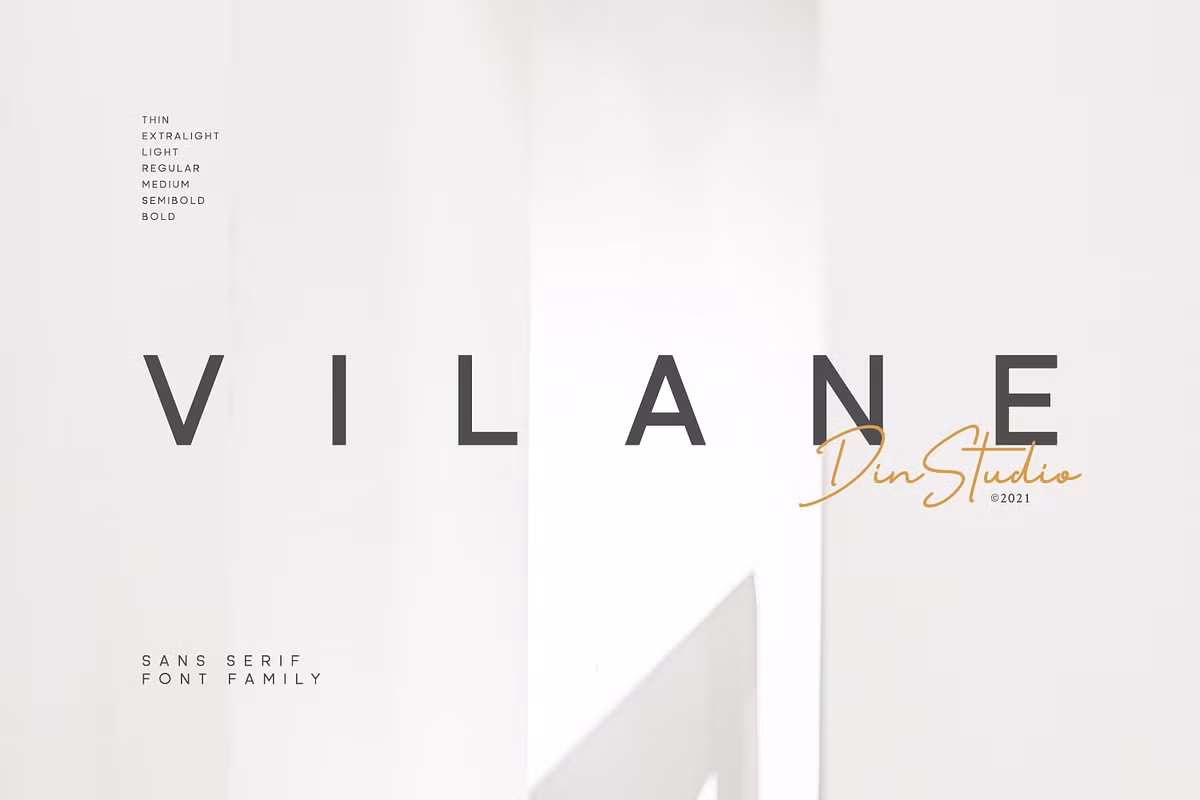
Vilane Font Free Download is a modern and stylish typeface that adds sophistication and elegance to your designs. With its clean lines, sharp angles, and unique character, this font is perfect for creating high-end logos, branding, editorial layouts, and websites. Its versatile design ensures it works beautifully for both professional and creative projects, offering a timeless appeal. Whether you're designing for a luxury brand, a modern business, or a chic product, Vilane Font Free Download lets you explore its sleek design in personal projects before purchasing a commercial license. Add a contemporary and refined touch to your designs with this beautifully crafted font.